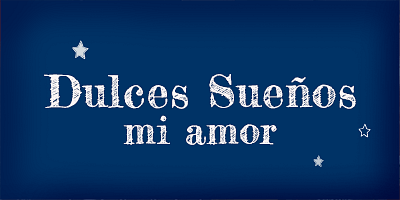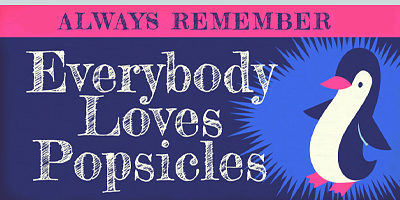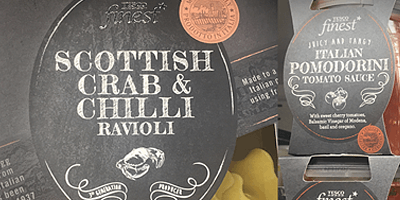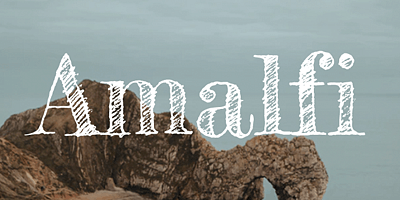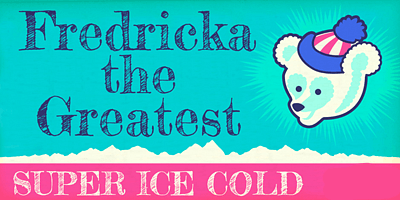
Fredericka the Greatest was hand-drawn in pencil loosely referencing the typeface Modern No.20. This Pro version is expanded and enhanced with more characters and finer detail.